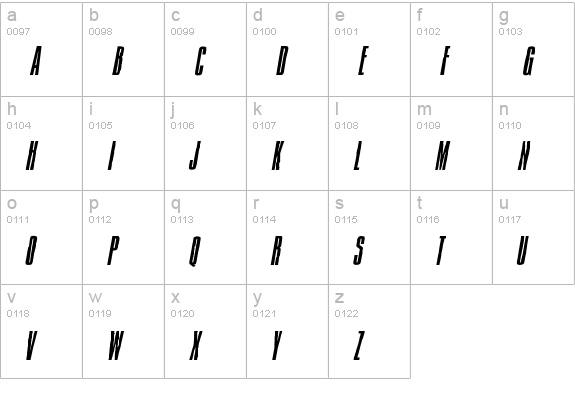
Jam Pact Font Details
Introducing Jam Pact, a captivating font that will add a touch of modern elegance to any project. With its sleek and stylish design, Jam Pact is perfect for creating eye-catching logos, captivating headlines, or even adding a unique flair to your social media posts. What sets Jam Pact apart is not only its stunning visual appeal but also the fact that it is freely available to download at FontsMarket.com. This means that anyone can access and utilize this extraordinary font, without any cost involved. Designed with meticulous attention to detail, Jam Pact offers a harmonious balance between sophistication and creativity. Its smooth lines and refined curves create a sense of fluidity, making it a versatile choice for a wide range of design projects. Whether you're a professional designer looking to elevate your work or a creative enthusiast searching for the perfect font to express your unique style, Jam Pact is the ideal choice. Its versatility allows you to effortlessly adapt it to suit any project, from sleek and modern to bold and artistic. So, why wait? Embrace the beauty of Jam Pact and take your designs to new heights. Download this remarkable font for free at FontsMarket.com and let your creativity soar.